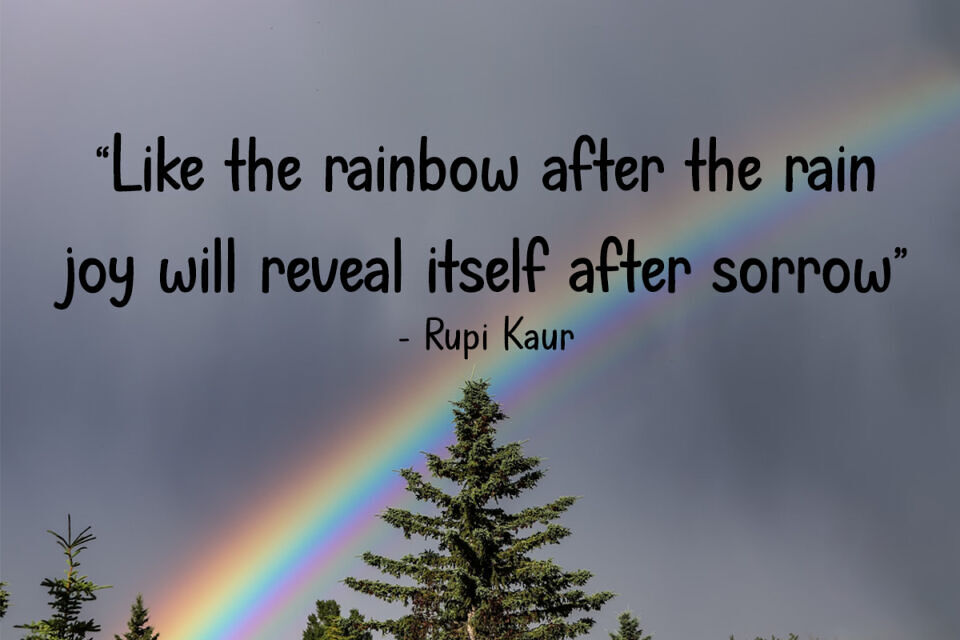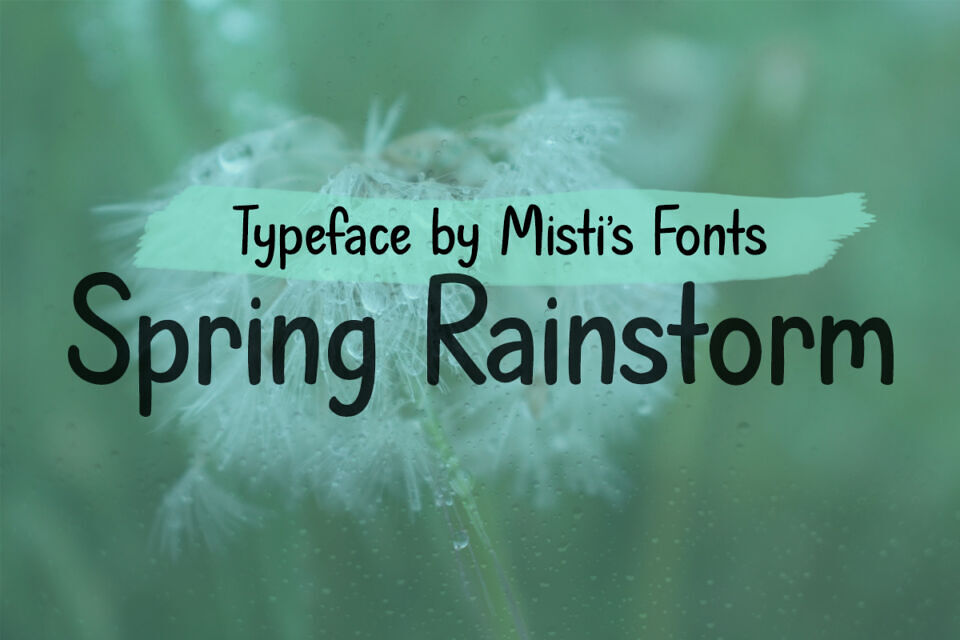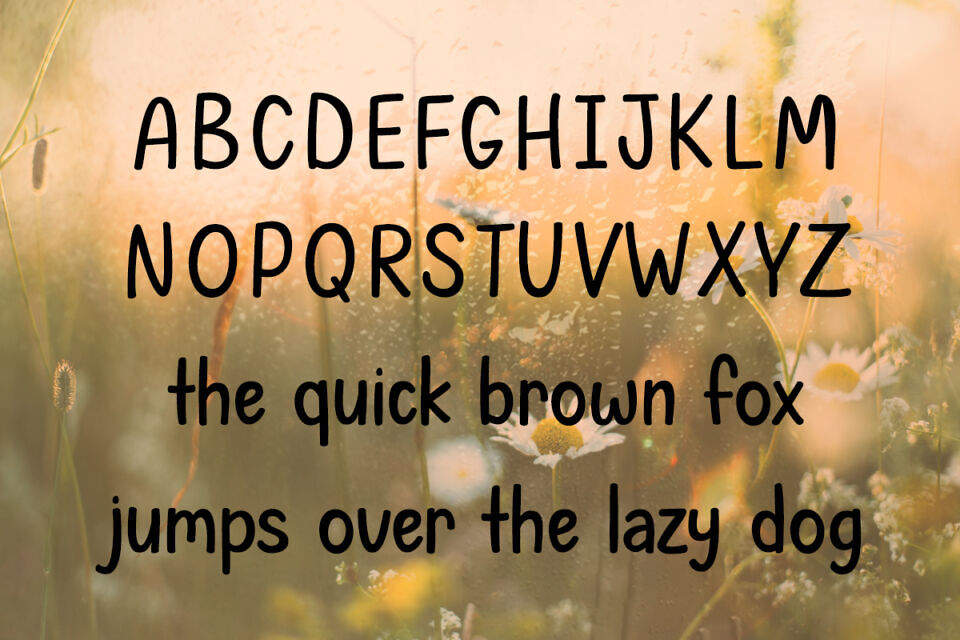
Spring Rainstorm is a charming handwritten typeface with soft, flowing strokes and subtle irregularities, giving it an organic and nice feel. Perfect for logos, invitations, and branding, it brings warmth and character to any design with its natural, effortless style.